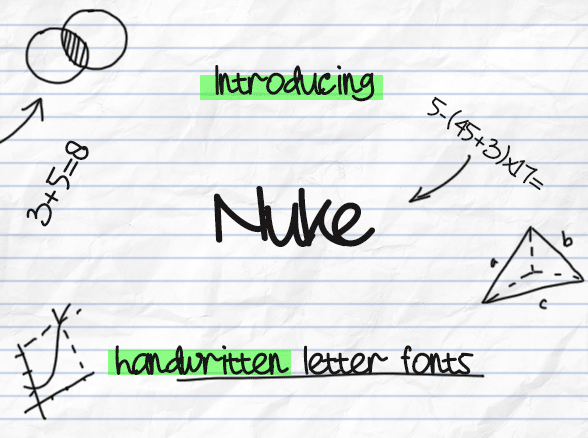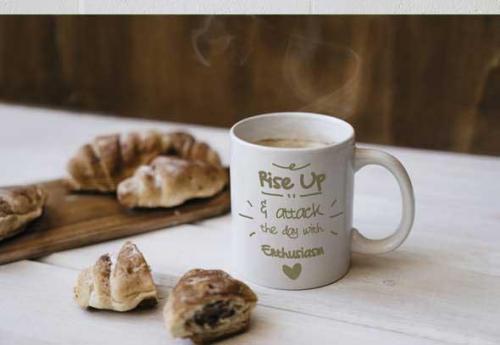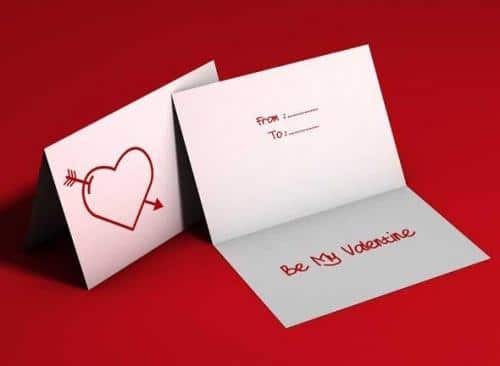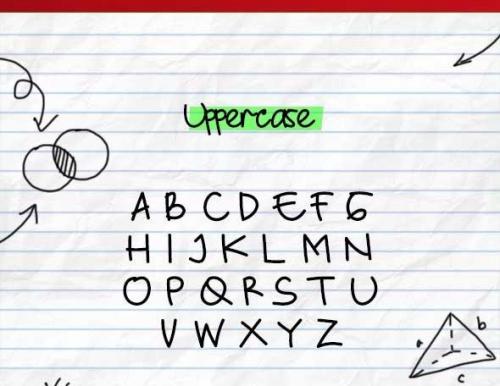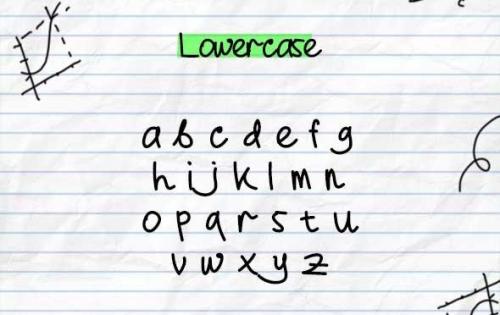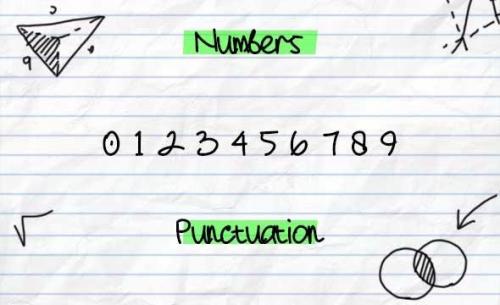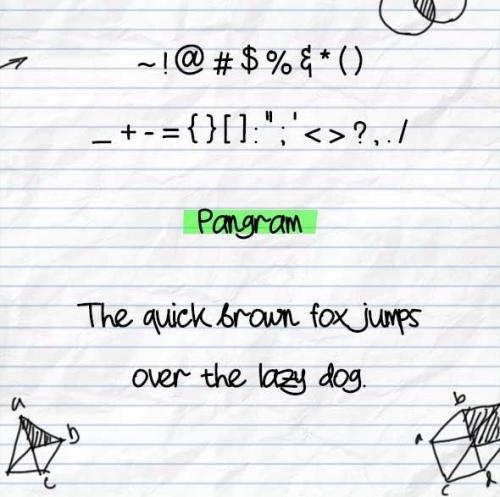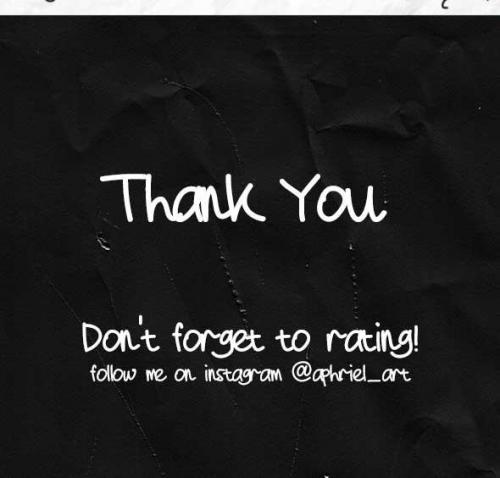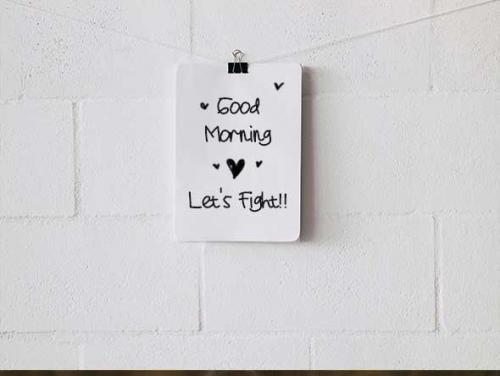
The Nuke is new font from Aphriell Art, elegant feel character set. To create the beautiful combination, just mix the uppercase and lowercase, there are three styles, bold, italic and regular. The Nuke inspired from Handwritten of someone I love.
- Designer: Esa Nugroho